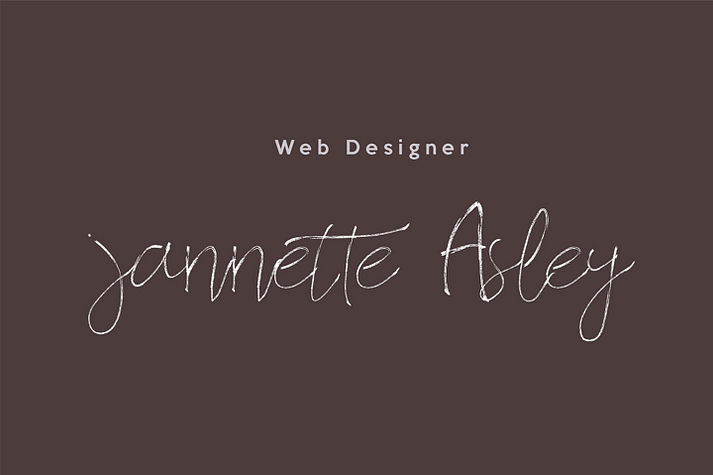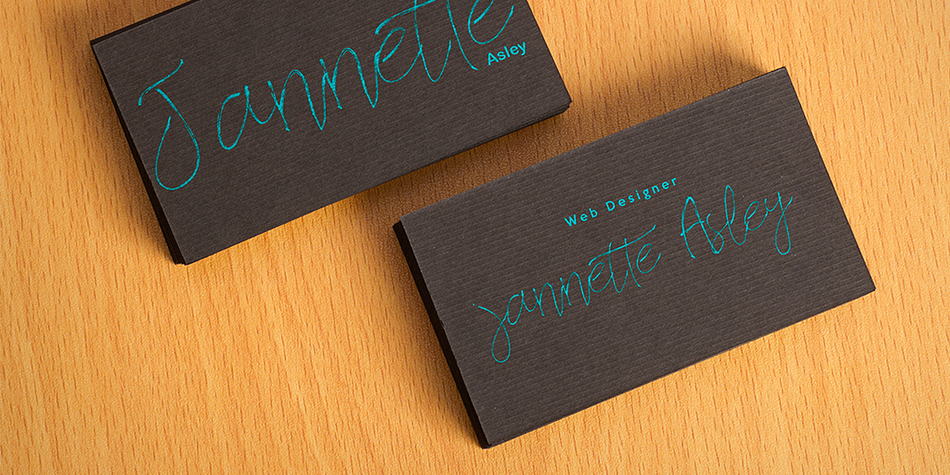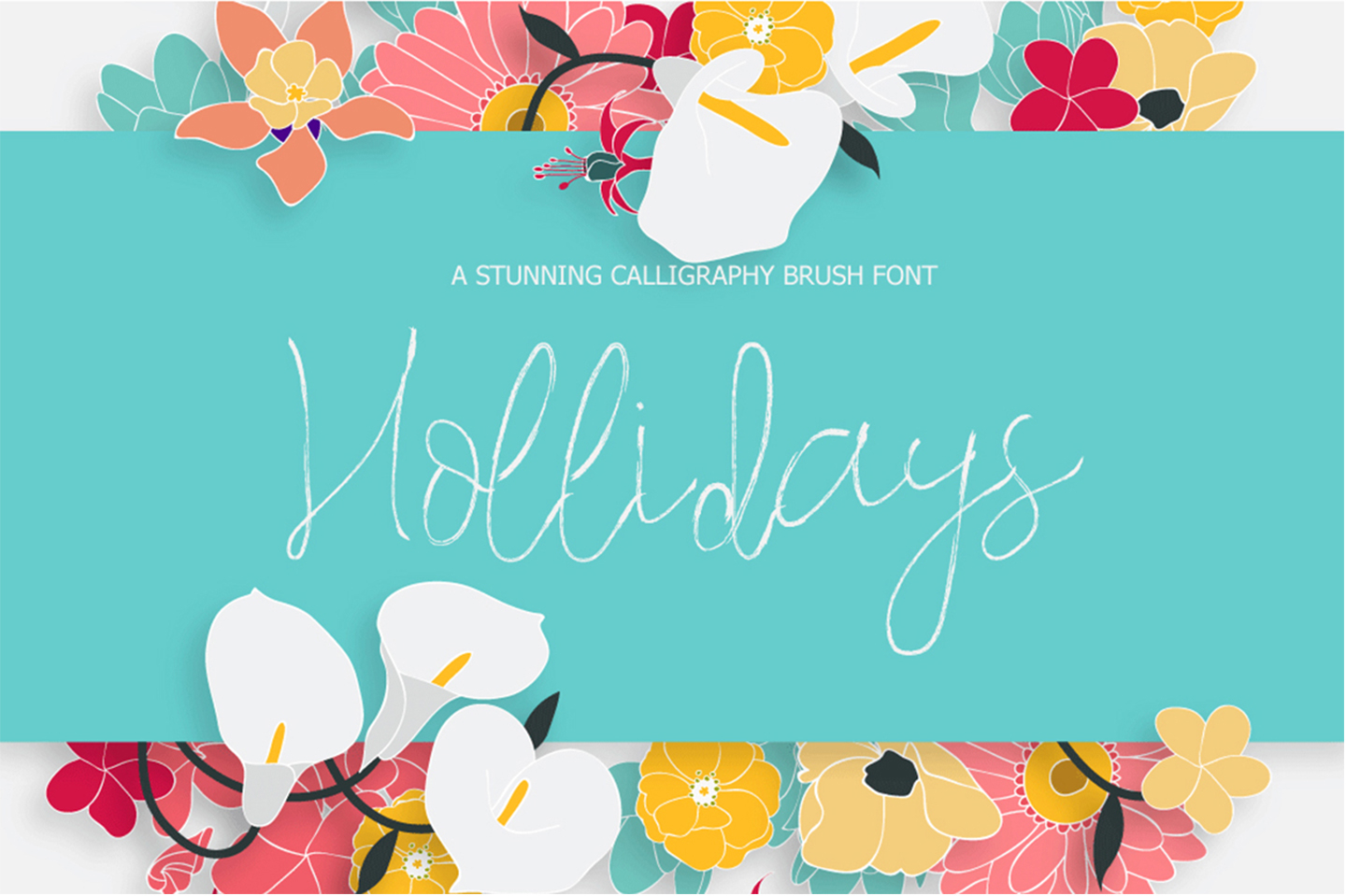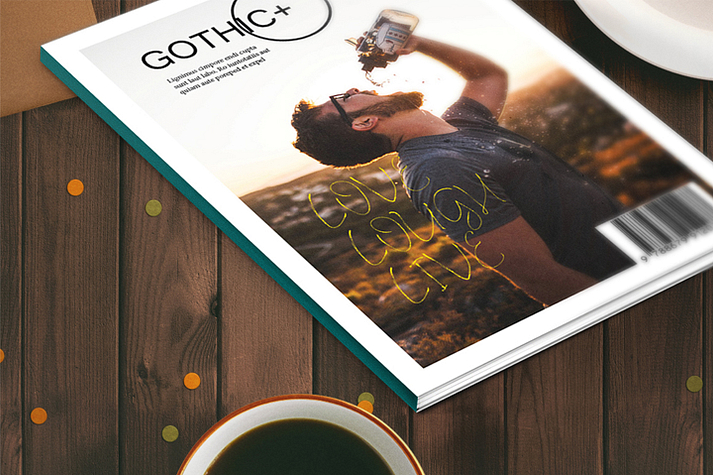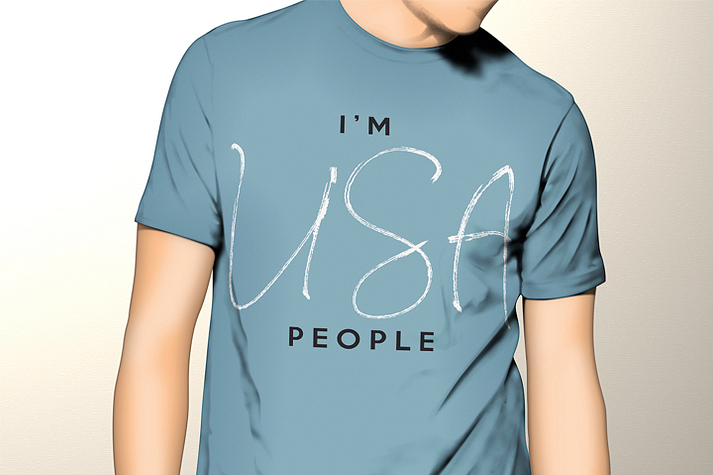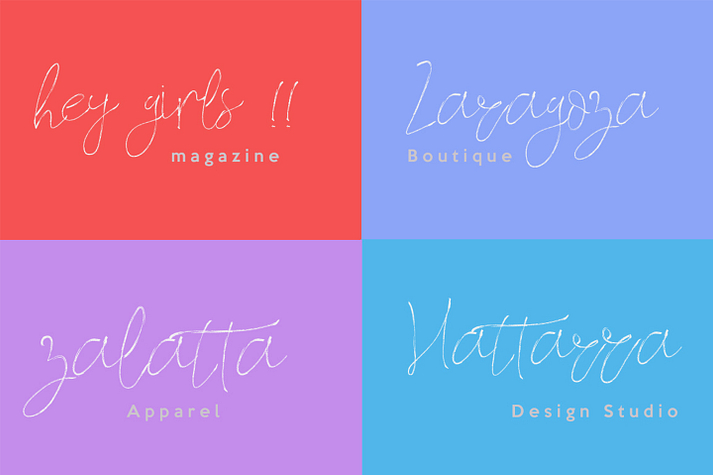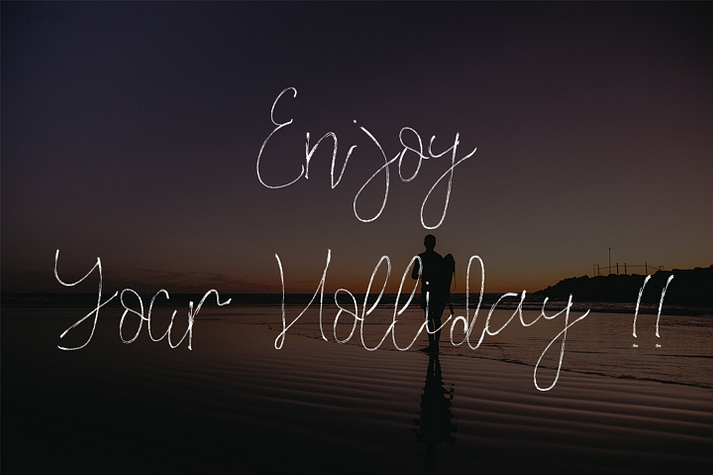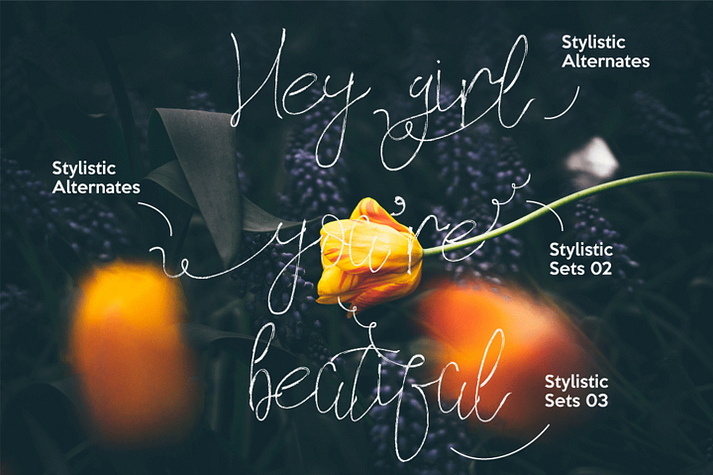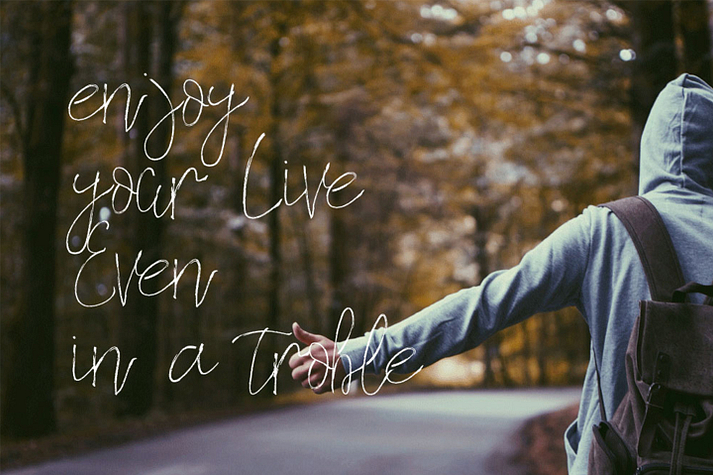
Hollidays
Hollidays is a dingbat, hand drawn and brush script font family. This typeface has eight styles and was published by Antimainstype.
Hollidays is a new Handbrush script style sketched with calligraphy.
That means this font would help you more in enhancing your design project if you love a calligraphy and hand brush.
Hollidays could be used for more design purposes as needed especially for web and templates design like logos,
wedding invitations, heading, t-shirts, letterhead, signage, label, news, posters, badges etc.
Hollidays completed with the "Hollidays swashs" to enhance your design project with the handletter brush one.
Like calligraphy, as usual, Hollidays completed with OpenType features with stylistic alternates, discretionary ligatures, stylistic sets and sure multiple language support.
560+ glyphs ready to boost your awesome design project, all alternates also available for multilanguage support..!
Displaying the beauty and characteristics of the Hollidays font family.